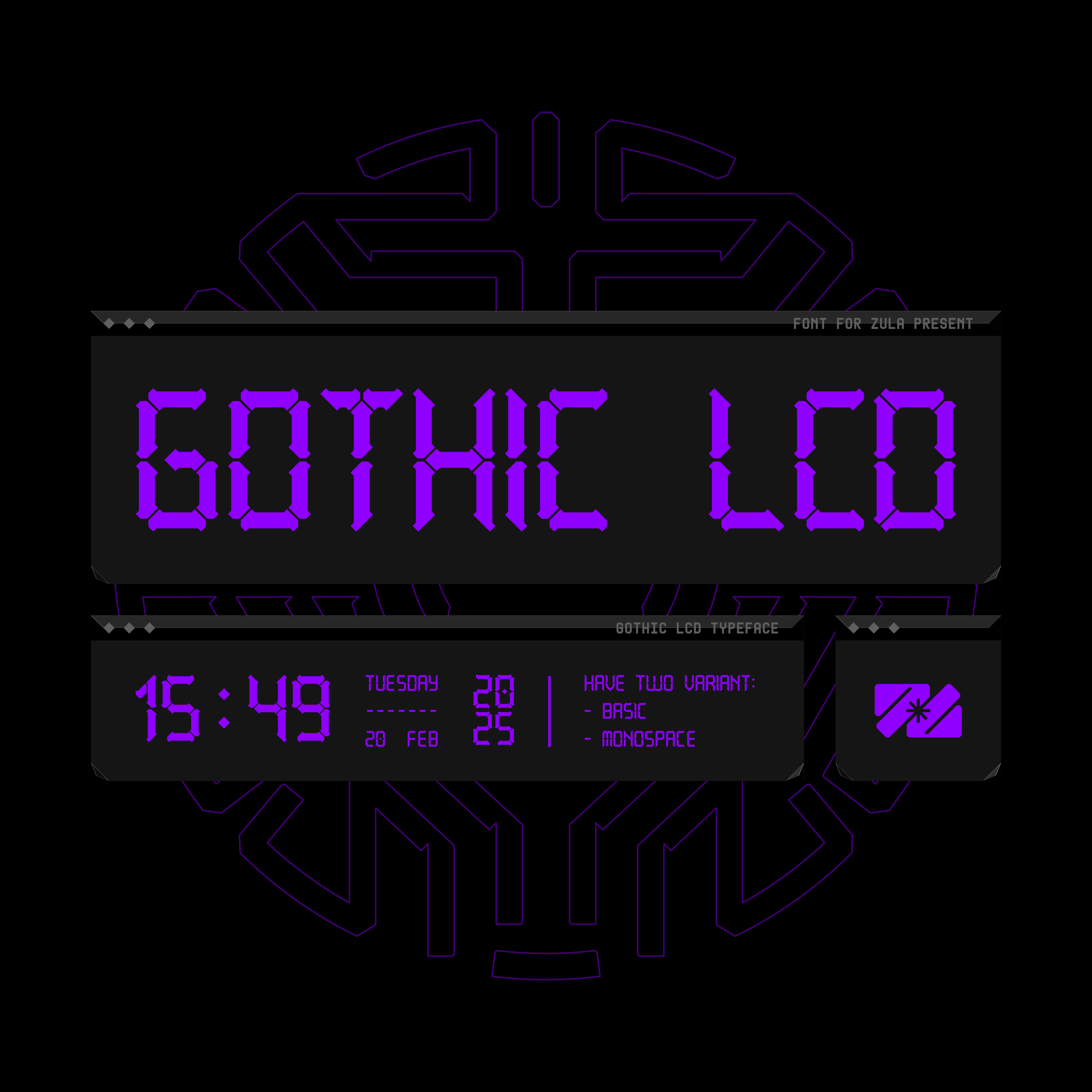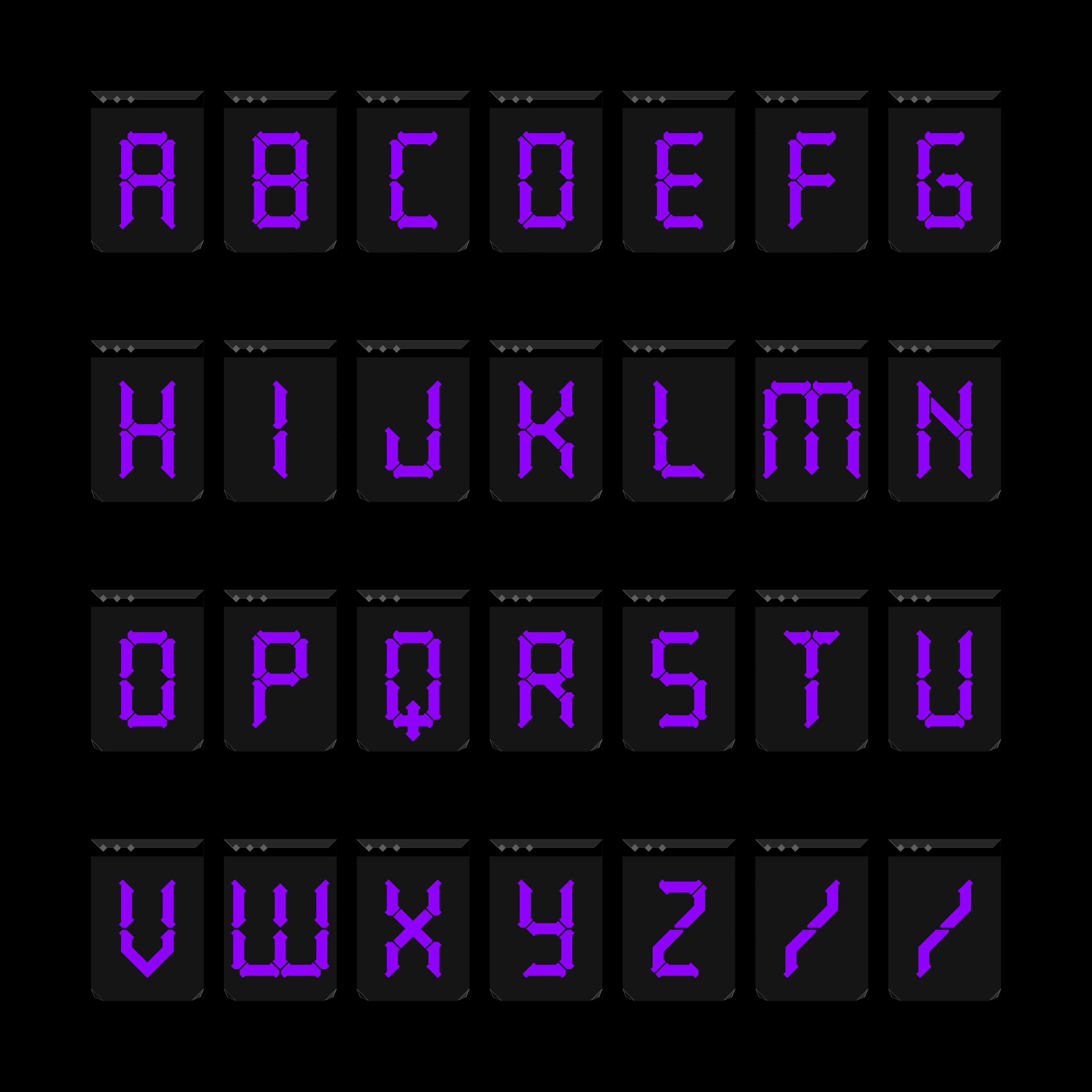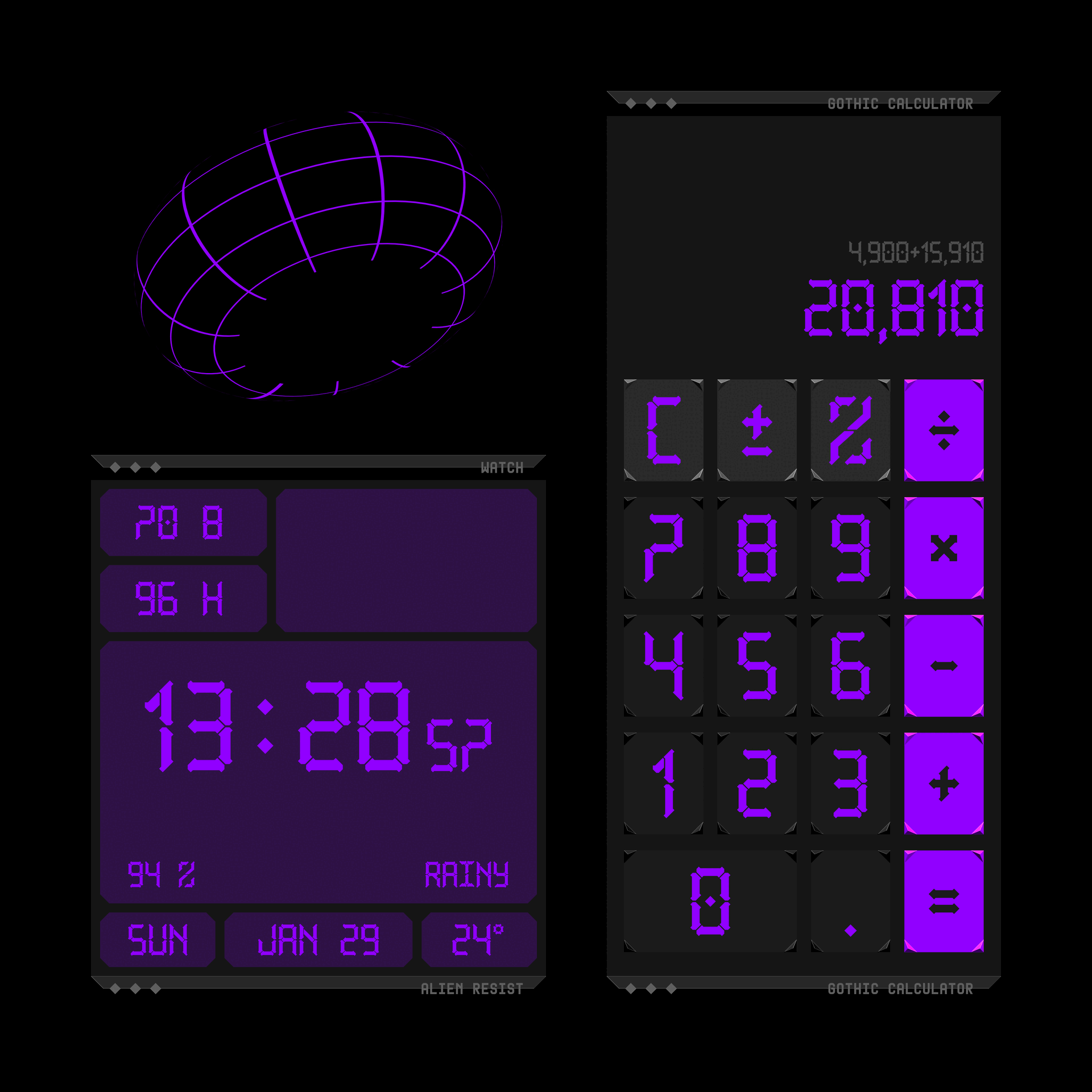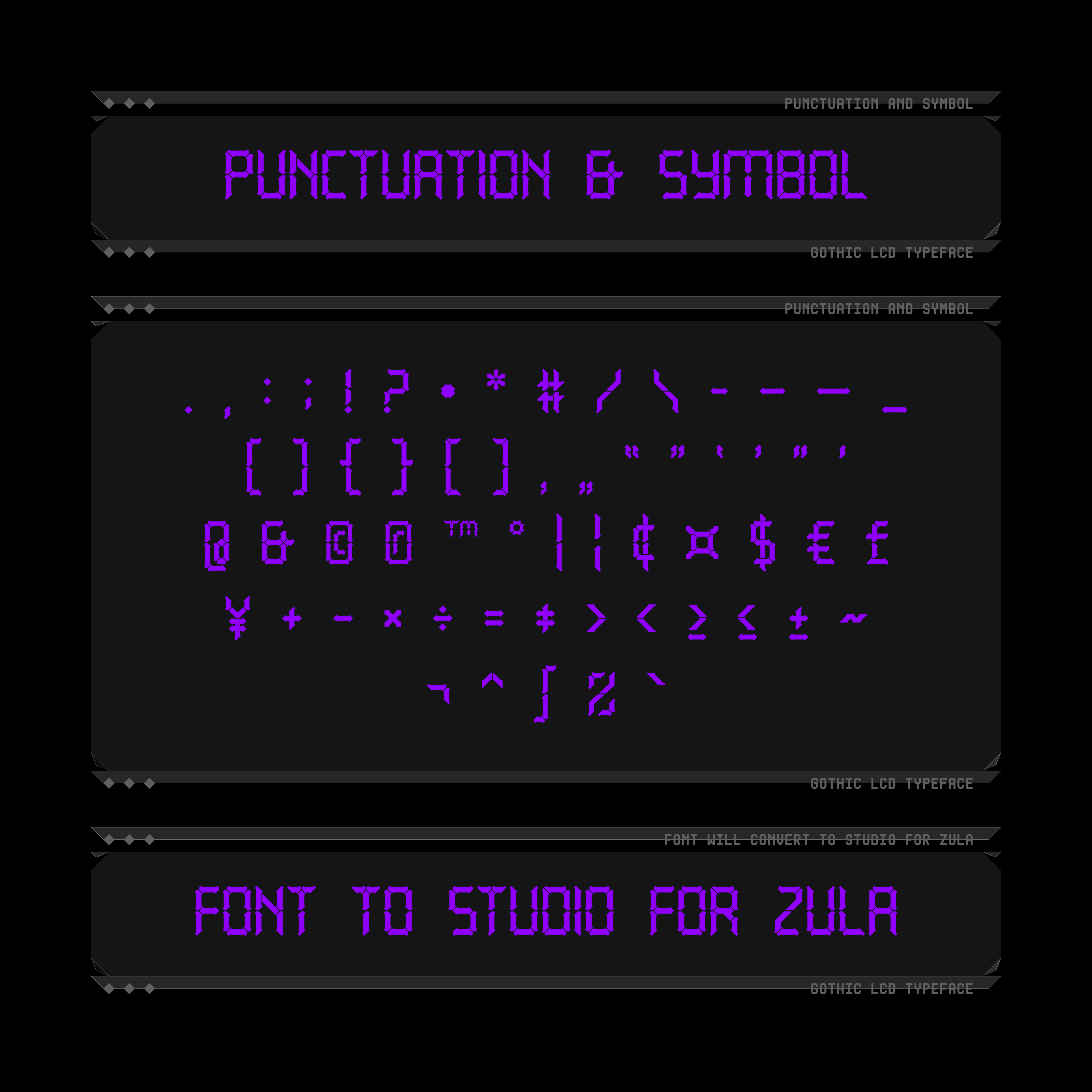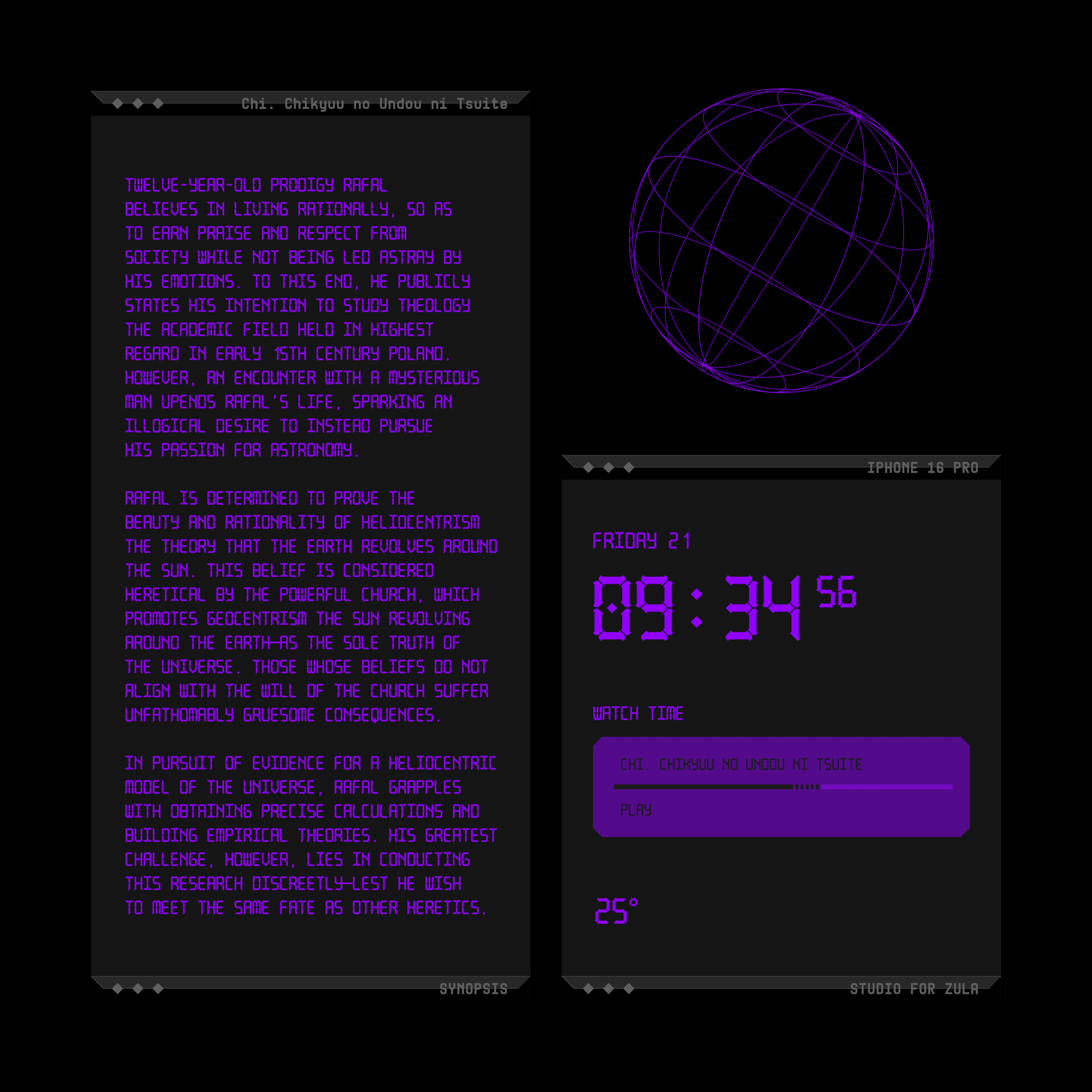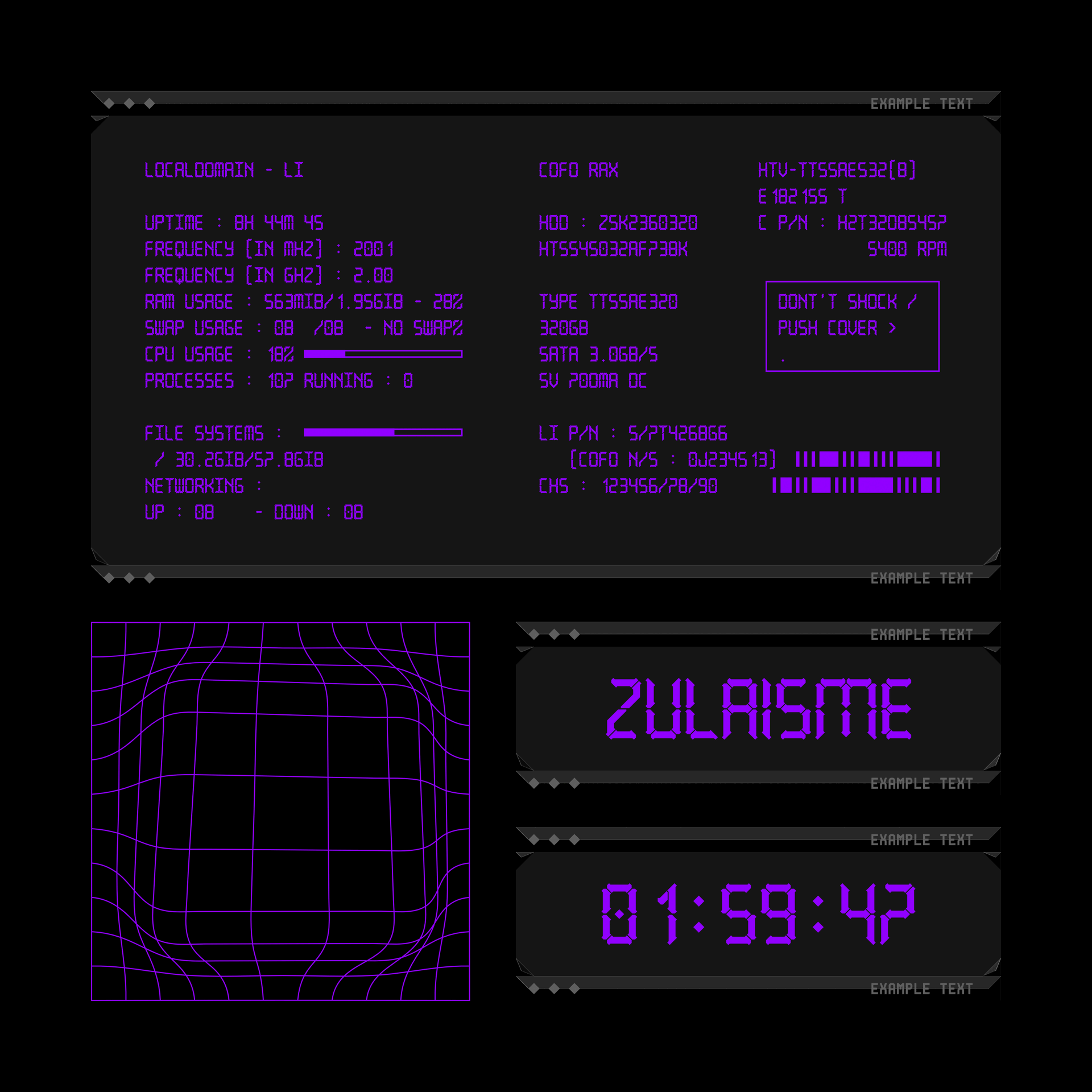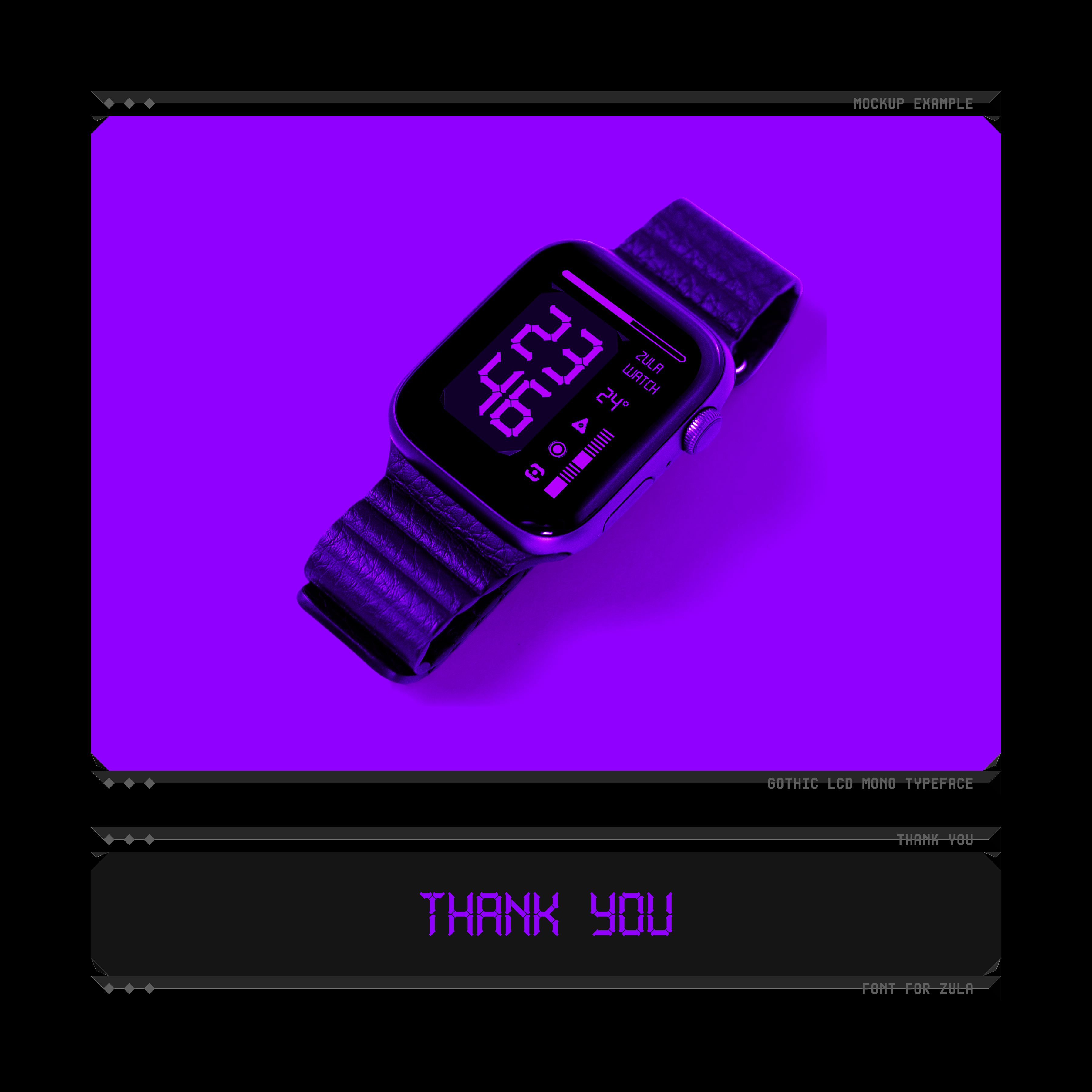
Font For Zula™
Gothic LCD Typeface
Gothic LCD is a development of the LCD font form by combineding it with the gothic style
to create a font that has its own uniqueness.
This typeface is divided into two versions; The Basic version and The Monospaced
version.